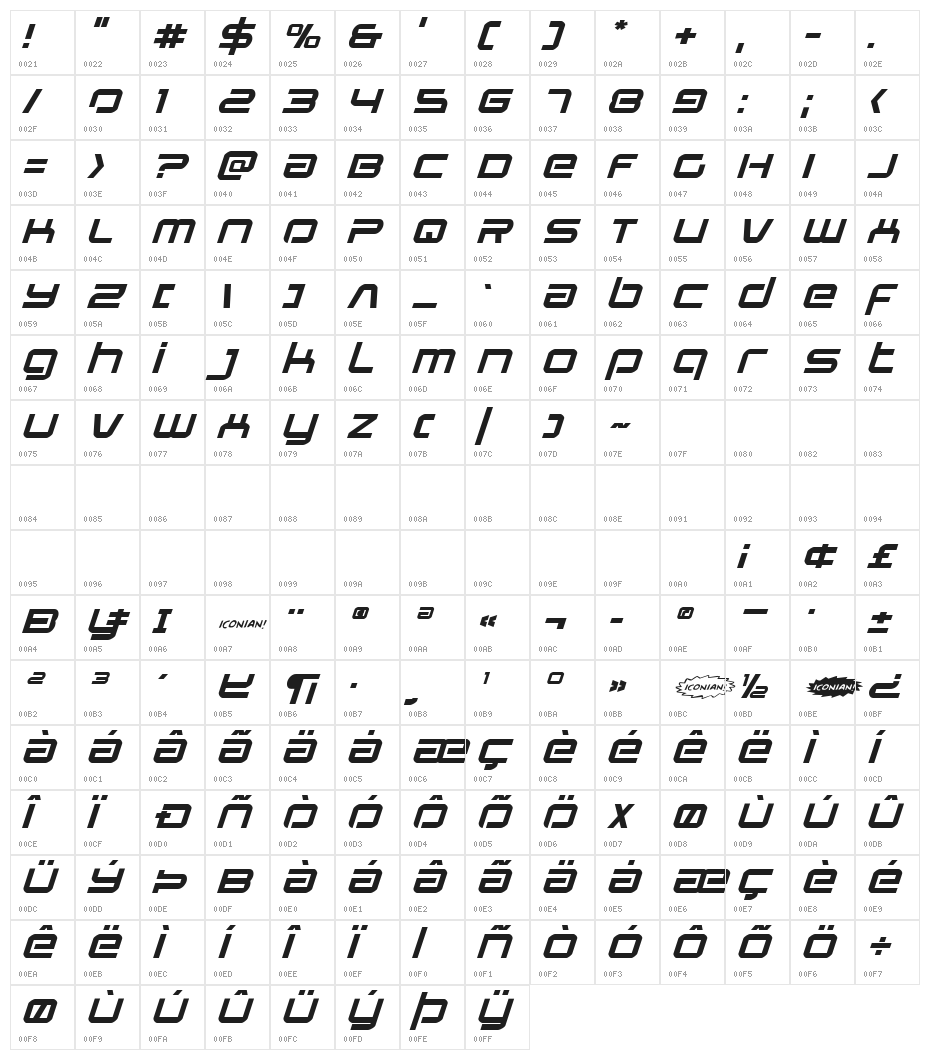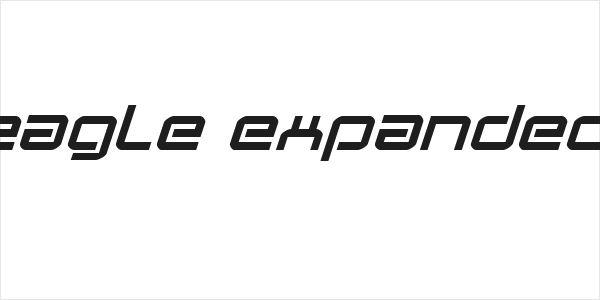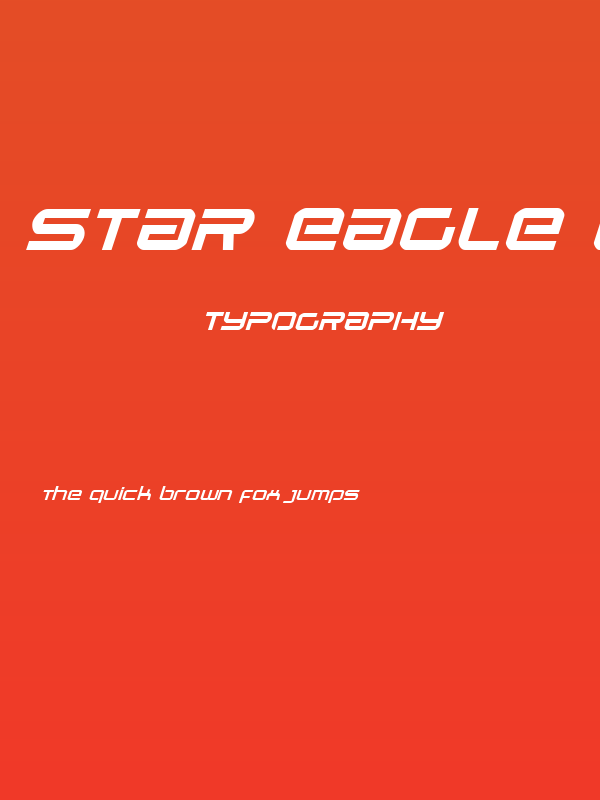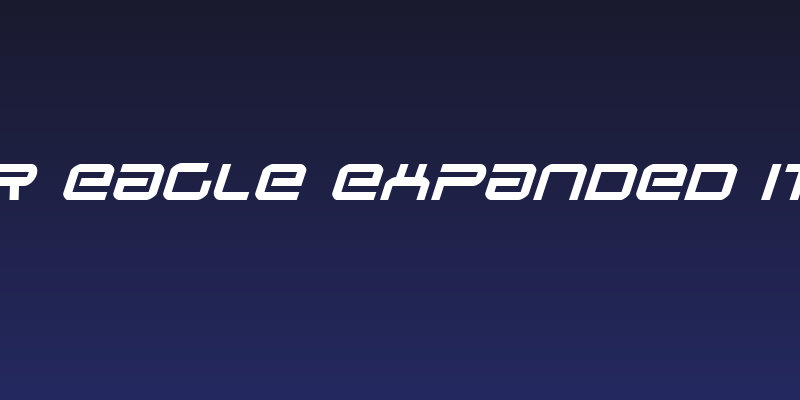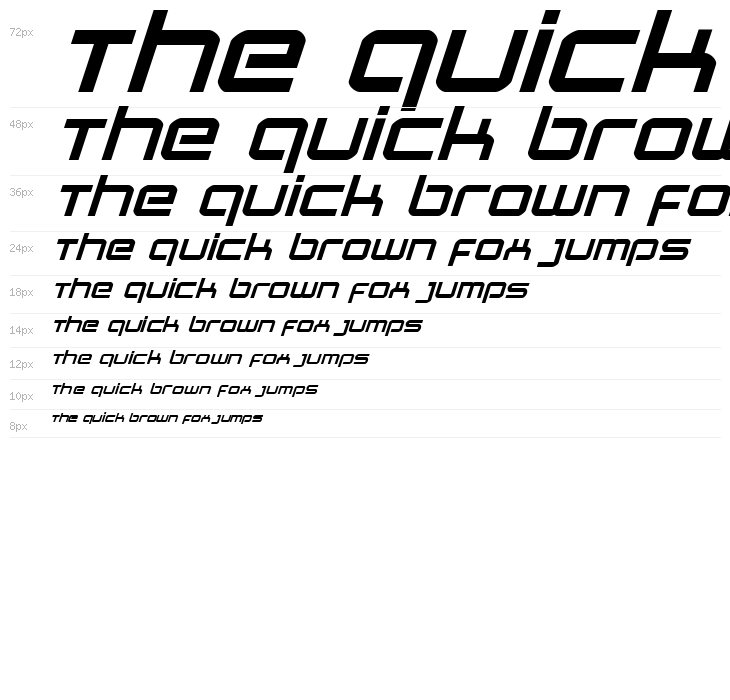
Star Eagle Expanded Italic Font
Star Eagle Expanded Italic Description
This font showcases a futuristic and dynamic style, characterized by its expanded and italicized form. The letters are sleek with a geometric structure, giving a sense of movement and speed. The angular cuts and sharp edges contribute to its modern and tech-inspired appearance. The uppercase and lowercase letters maintain a consistent design, while the numerals and special characters complement the overall aesthetic. This font is ideal for projects that require a bold and contemporary look, such as technology branding, sports team logos, or sci-fi themed designs.
| Use Case | Logos, Headlines, Branding |
| Proposed Projects | Ideal for technology branding, sports logos, sci-fi themes, and modern advertising. |